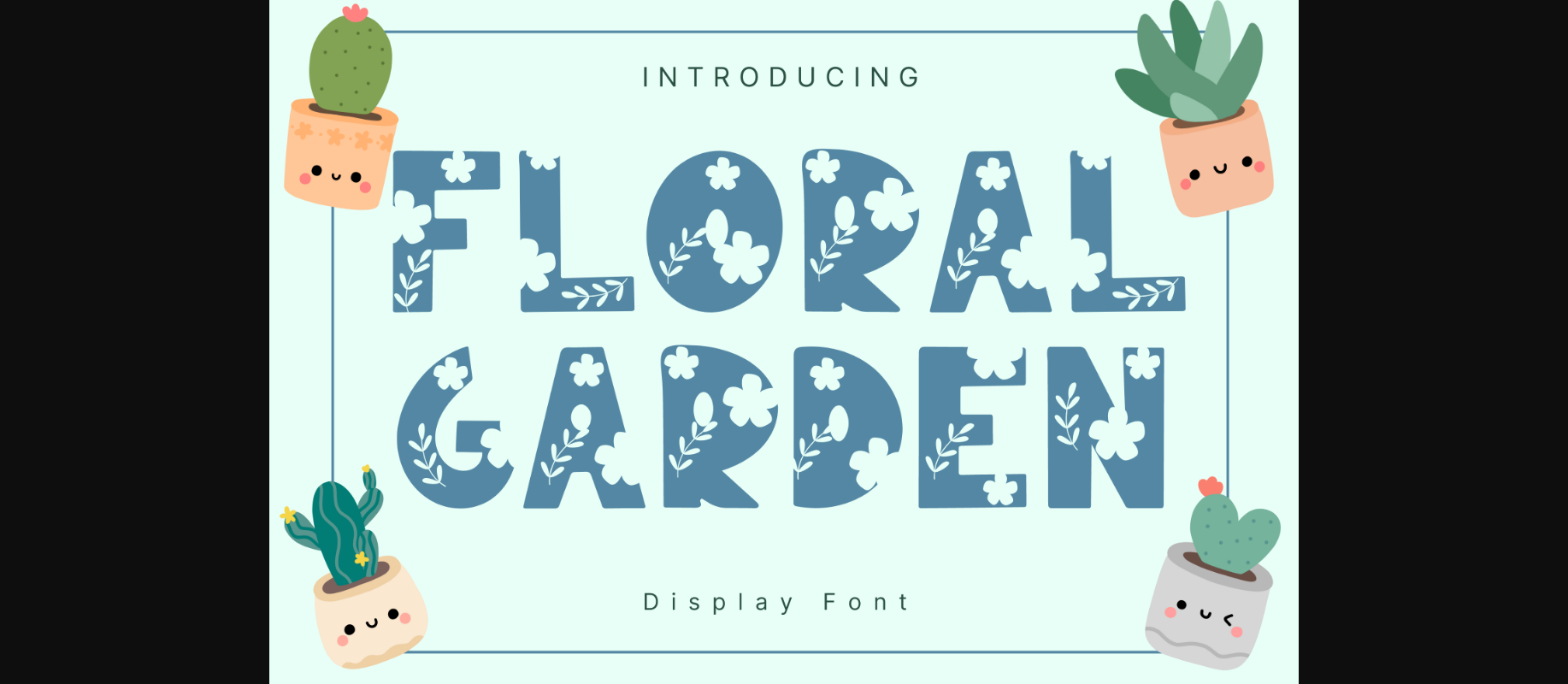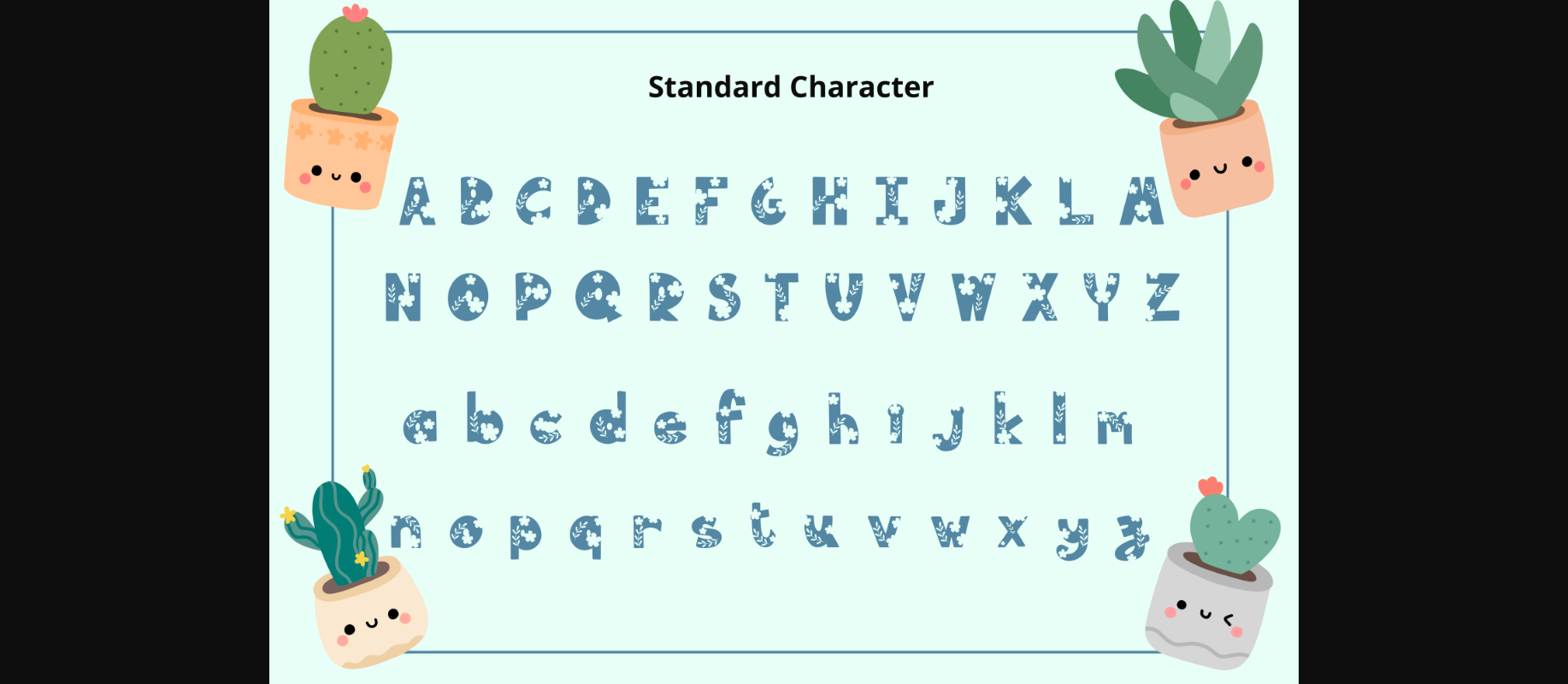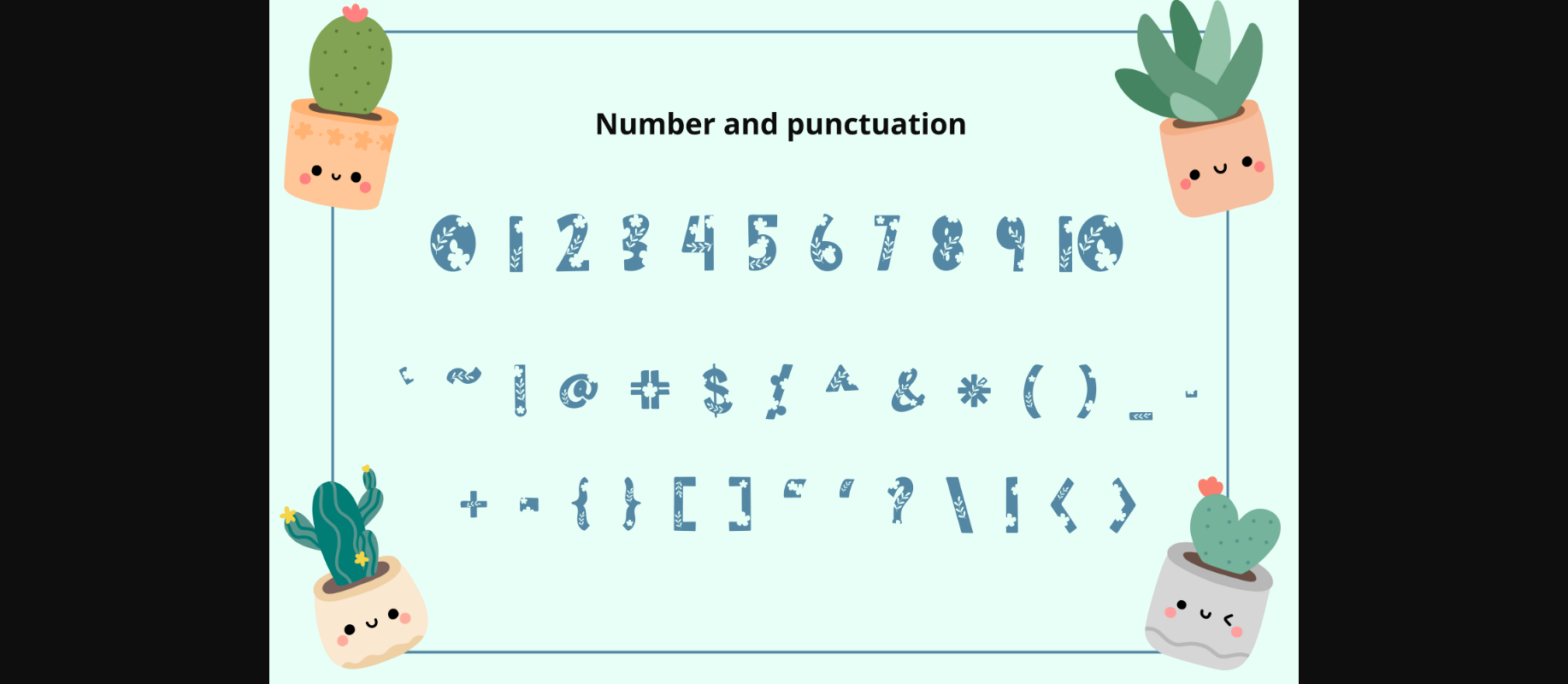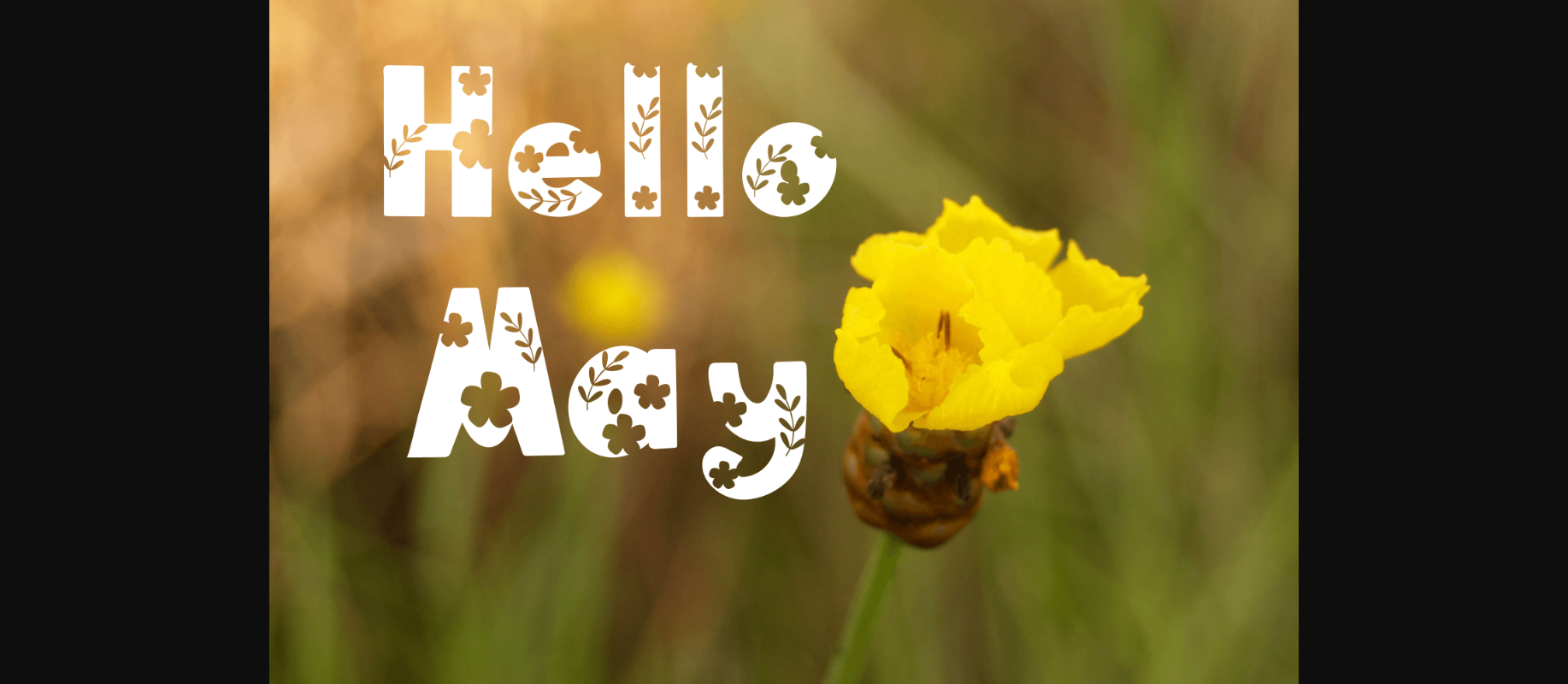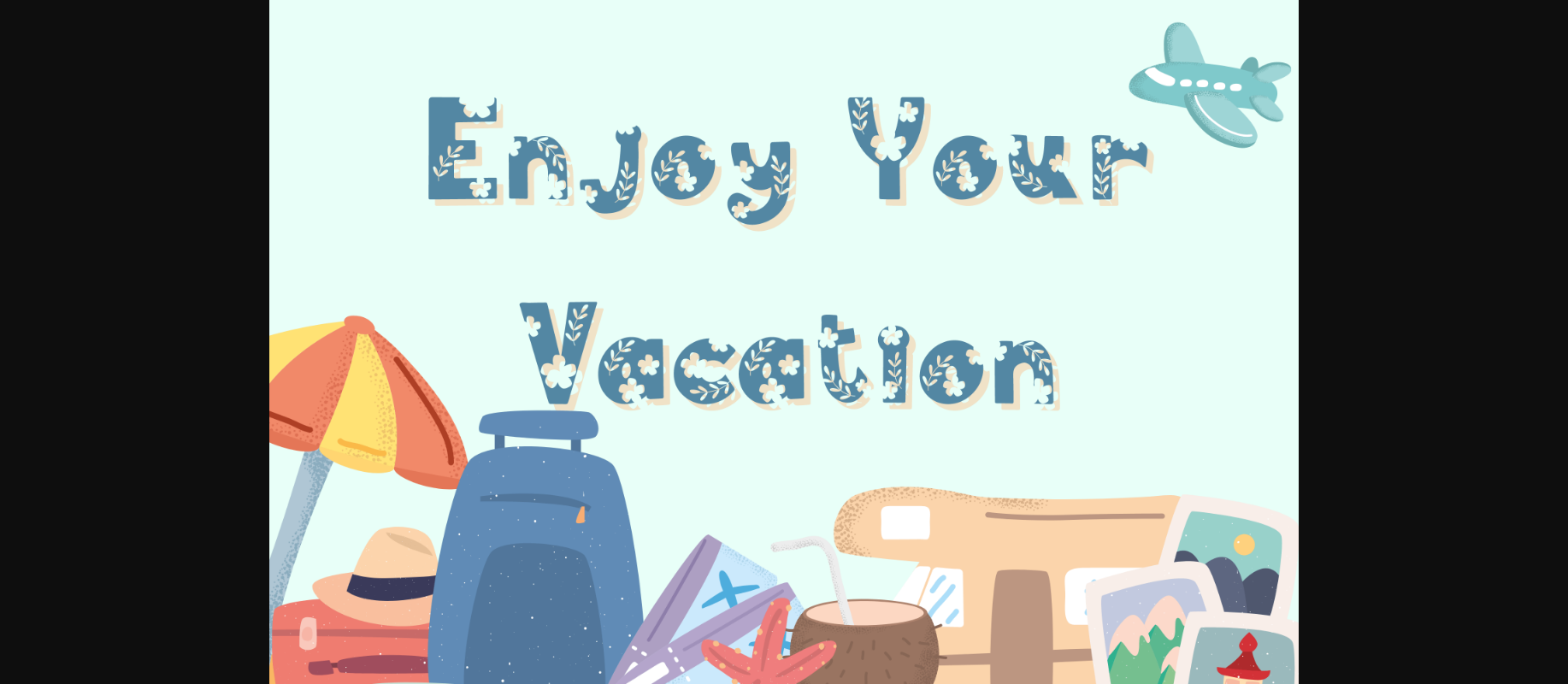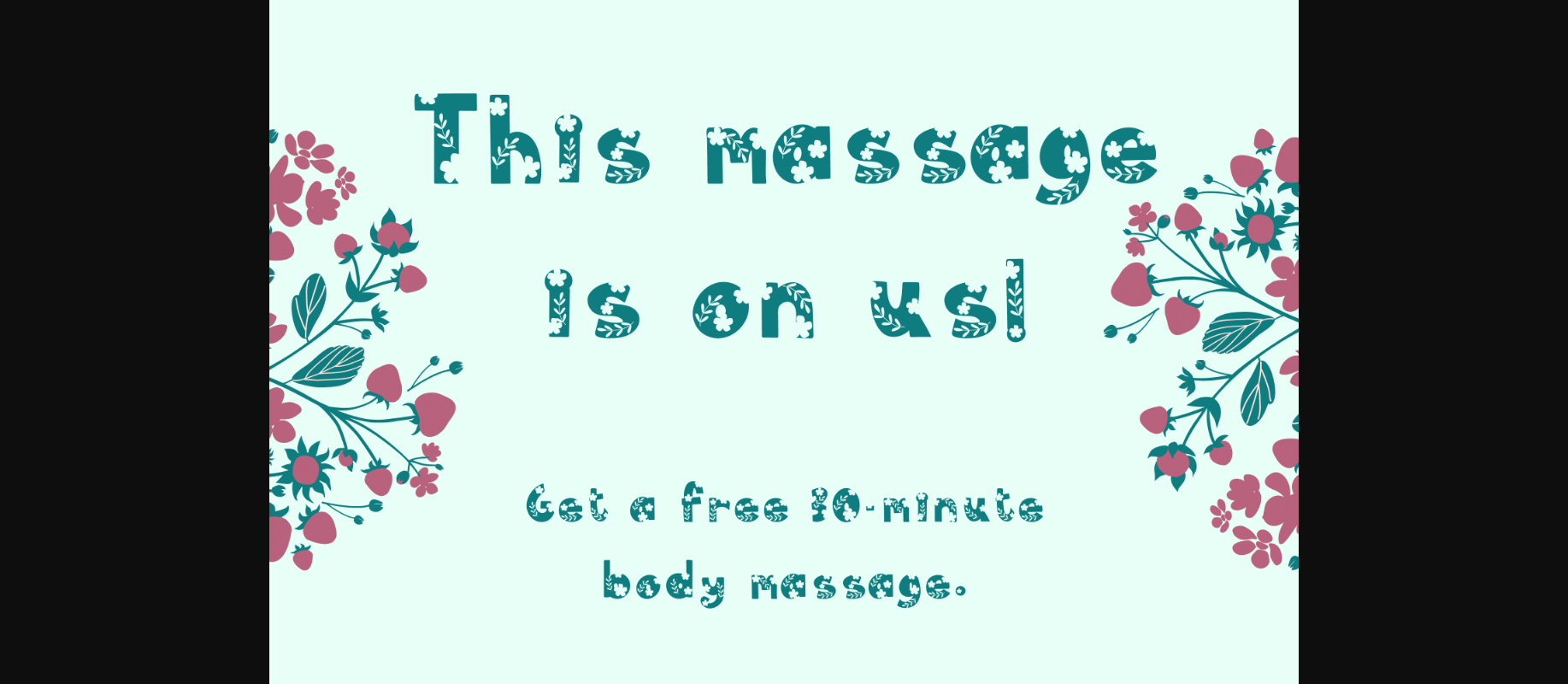
Floral Garden Font
About Floral Garden Font
Floral Garden is a whimsical and clean decorative font. It can easily be matched to an incredibly large set of projects, so add it to your creative ideas, and notice how it makes them stand out!